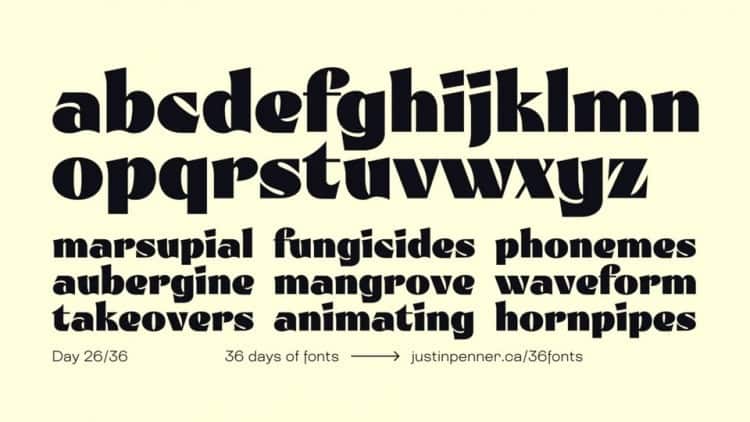
Hilt Sans Serif Font is a modern display sans serif typeface inspired by a drawing trends of needle-like points, infinitely sharp letterforms. With strong characters in the size of Black, it is very suitable for use for sign displays.
This font perfect for branding, stationery, social media posts, advertisements, product packaging, product designs, label, photography, watermark, special events, and more.